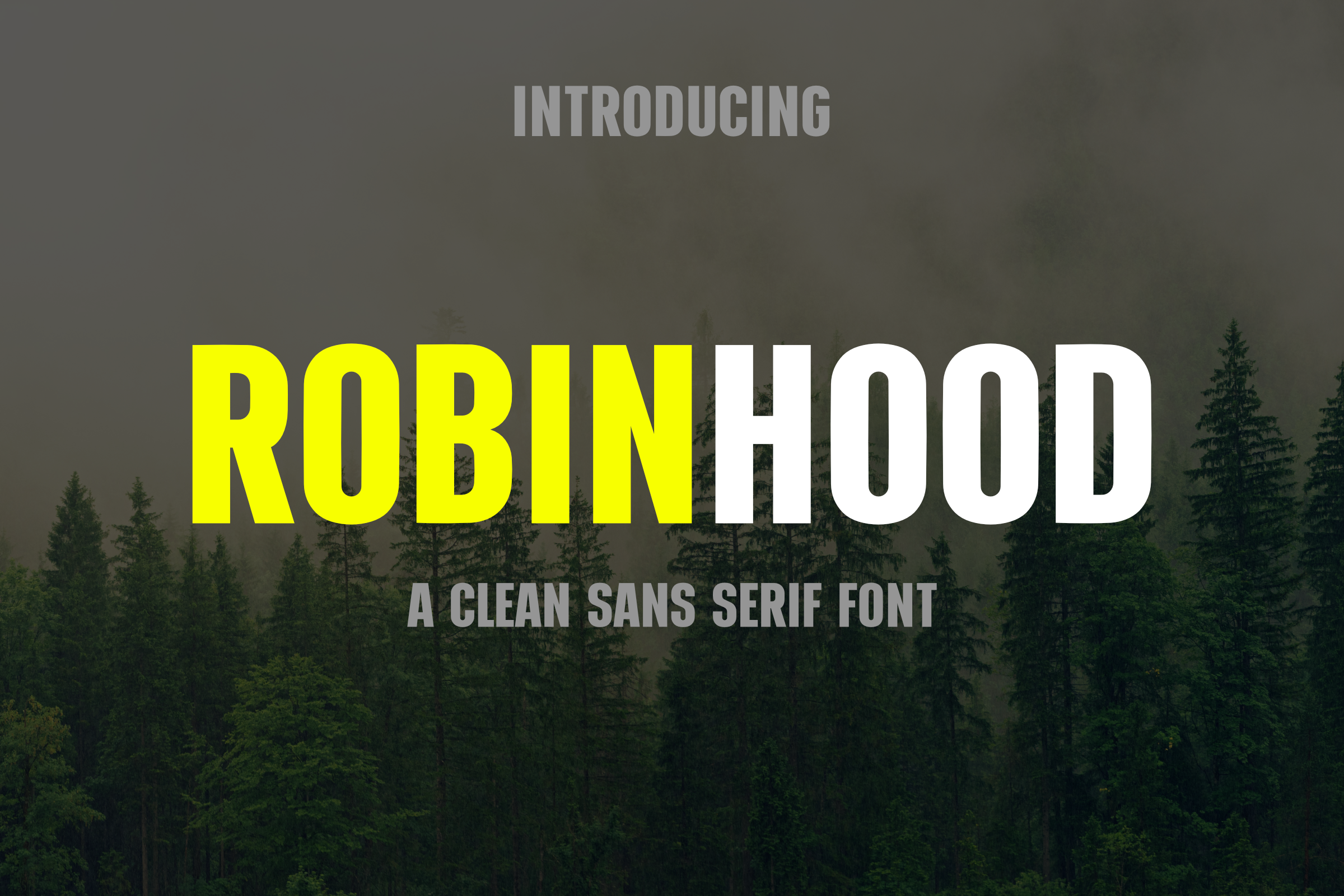
Robinhood Font
Introducing Robinhood, a font that seamlessly blends modern aesthetics with the tranquility of nature. This sleek sans-serif typeface is meticulously crafted to evoke a sense of balance and cohesion, mirroring the beauty found in harmonious landscapes. The letters flow effortlessly, embodying a perfect equilibrium that brings a touch of serenity to every design. With its clean lines and subtle curves, Robinhood strikes the ideal balance between contemporary sophistication and the calming essence of nature. Elevate your projects with this versatile font, where each character is a harmonious note in a symphony of design excellence.